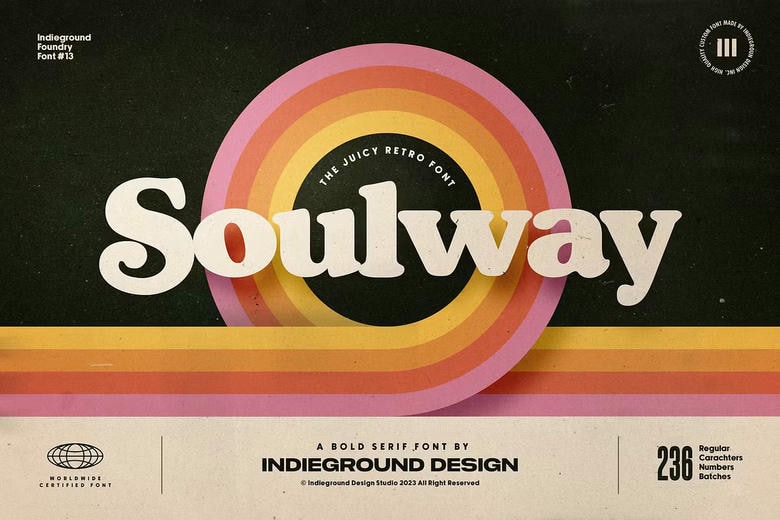
Soulway Font
Soulway Font from Indieground – This is an intense and sensual – a true lover of a font – that is a curvy serif typeface with a retro feel that draws on the atmosphere of the 70s. Based on this style, one of the most famous typefaces in the past century, the display fonts are available in regular and shadowed styles.
As a result, it can be effectively employed as ornaments in nostalgic paintings, designs of albums, posters, and flyers that depict the perfect atmosphere of the given theme. Besides, it is perfect for creating catchy, vintage pieces for your profile or a particular post. As as always its curvy nature is classical – but of course this font will let your creativity flow back to the good old juicy atmospheres!
Soulway Serif Font